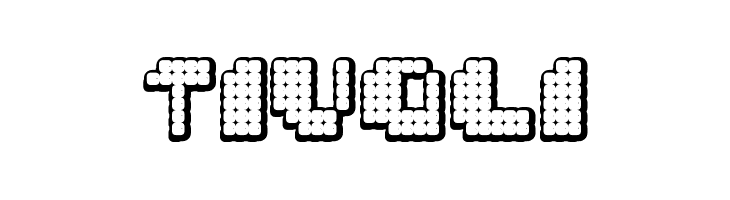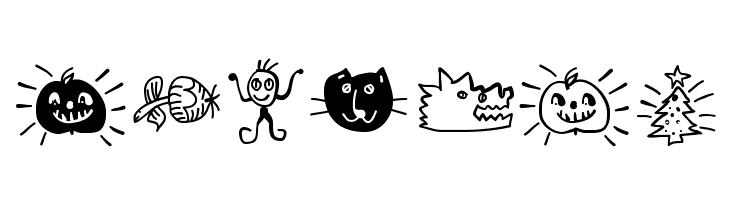
A bold, decorative font with cactus-like thorn details.
A bold and artistic font with unique curves and angles.
A bold, distressed font with a grungy, urban style.
A bold, particle-textured font with a dynamic and chaotic style.
A bold, condensed font with high contrast and a strong vertical emphasis.
A playful, dotted decorative font with bold, outlined characters.
A whimsical, doodle-like font with playful and expressive illustrations.